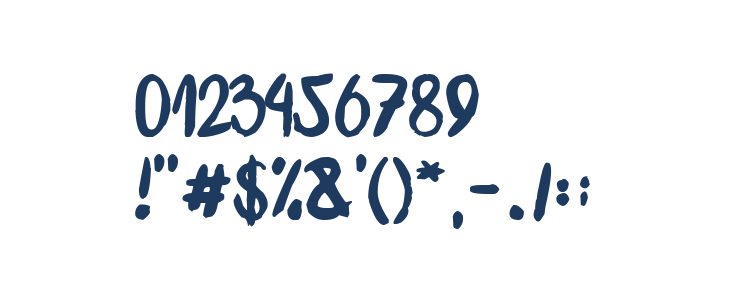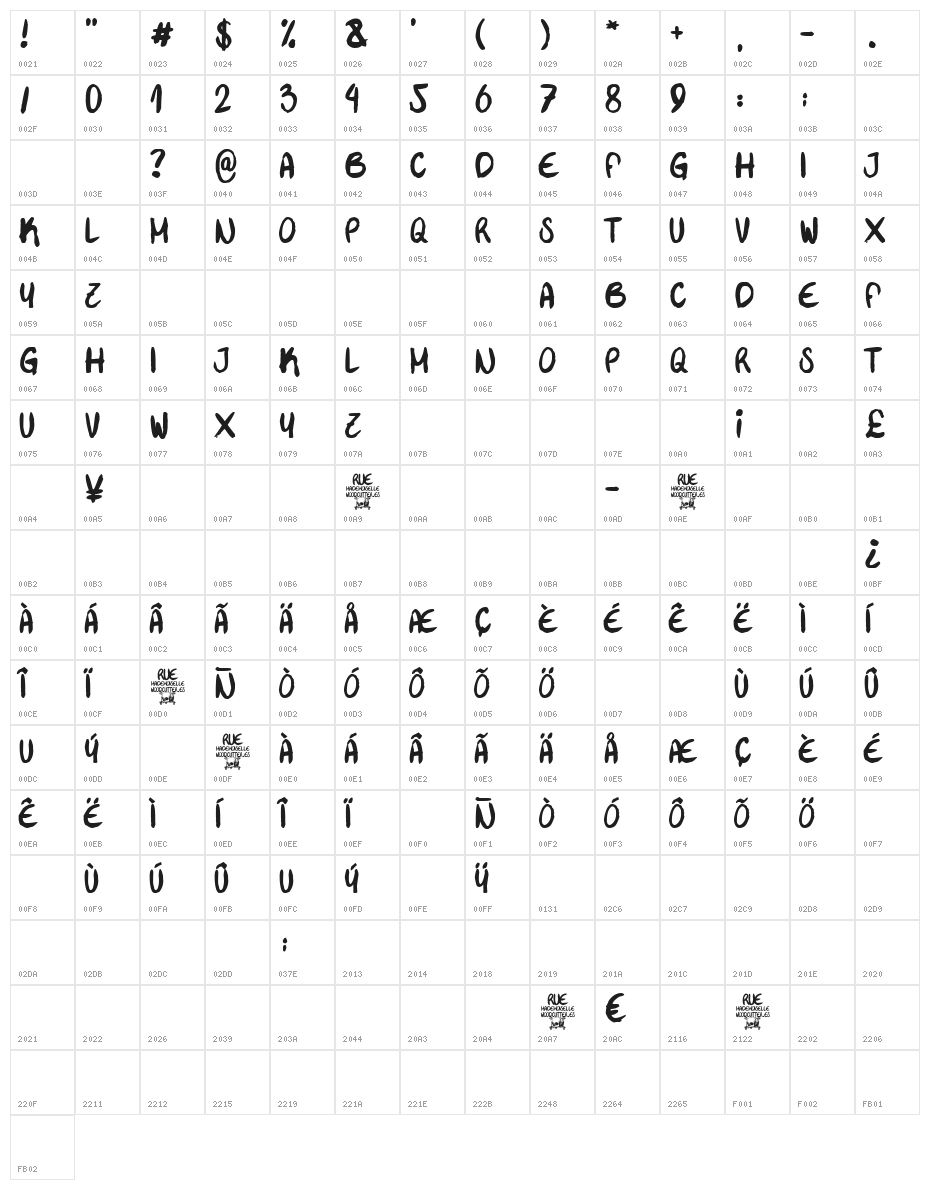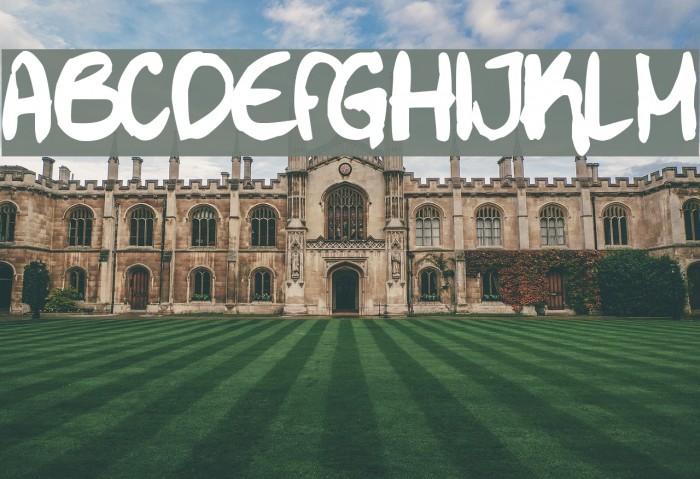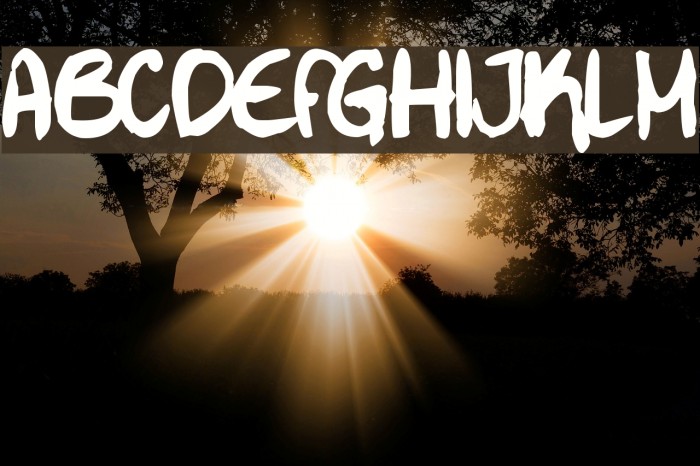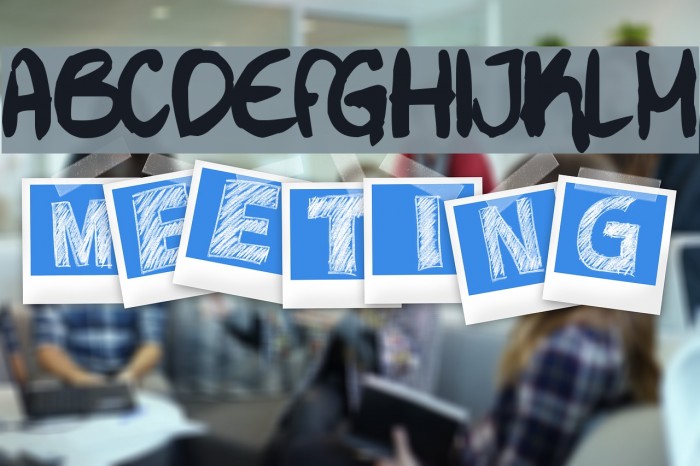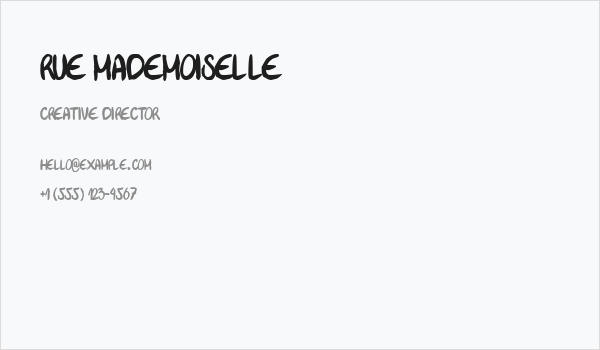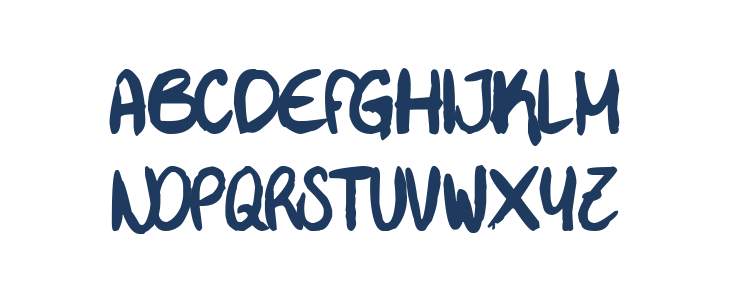
Rue Mademoiselle Font
Rue Mademoiselle Description
This font exudes a bold and expressive handwritten style, characterized by its thick, brush-like strokes and dynamic, flowing forms. Each character is crafted with a sense of movement and energy, giving the typeface a lively and informal appearance. The letters are slightly irregular, adding to the authentic handwritten feel. The uppercase and lowercase letters maintain a consistent style, while the numerals and special characters complement the overall aesthetic. The font's playful and artistic nature makes it ideal for creative projects that require a personal touch.
| Proposed Projects | Perfect for greeting cards, posters, artistic branding, and social media graphics. |